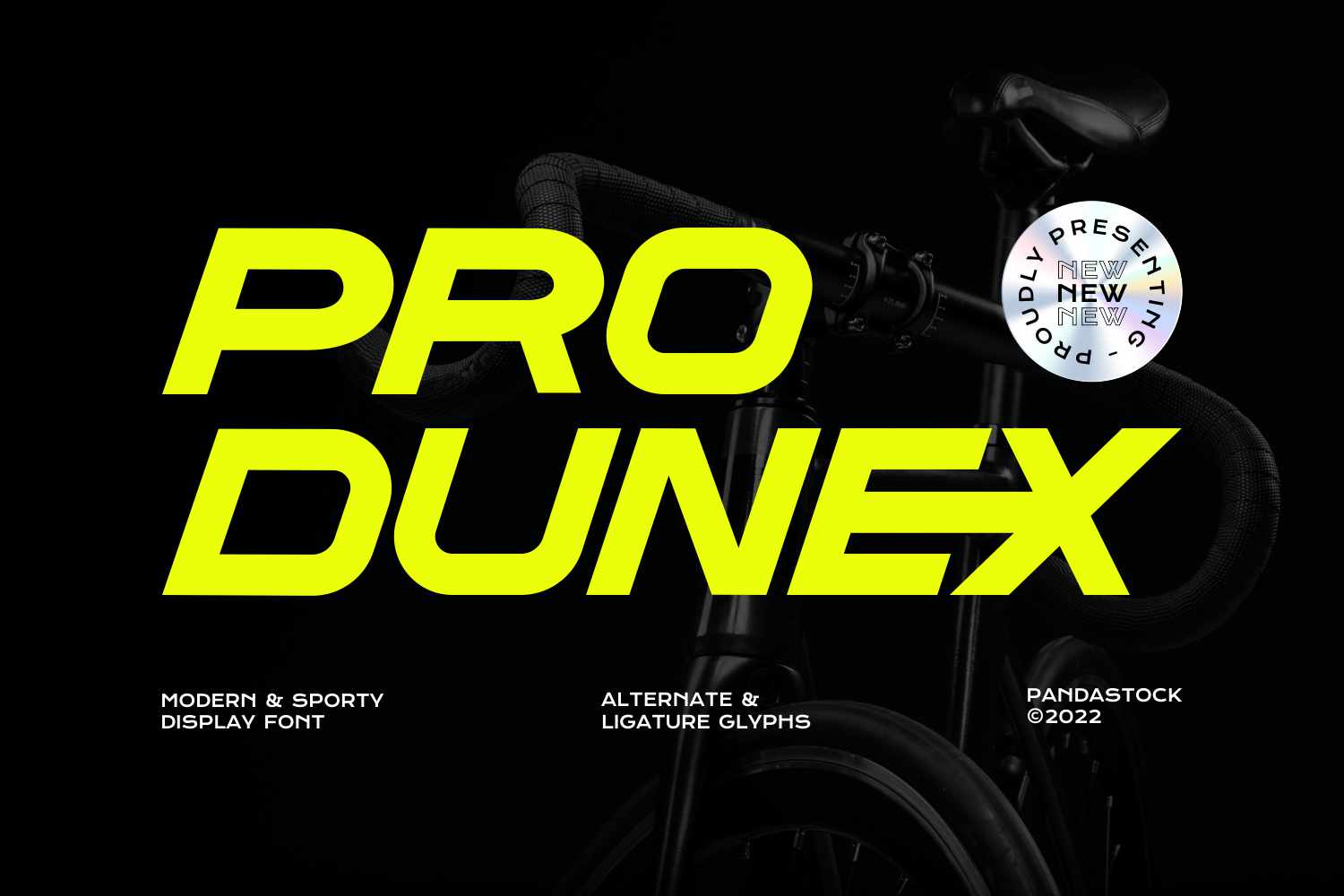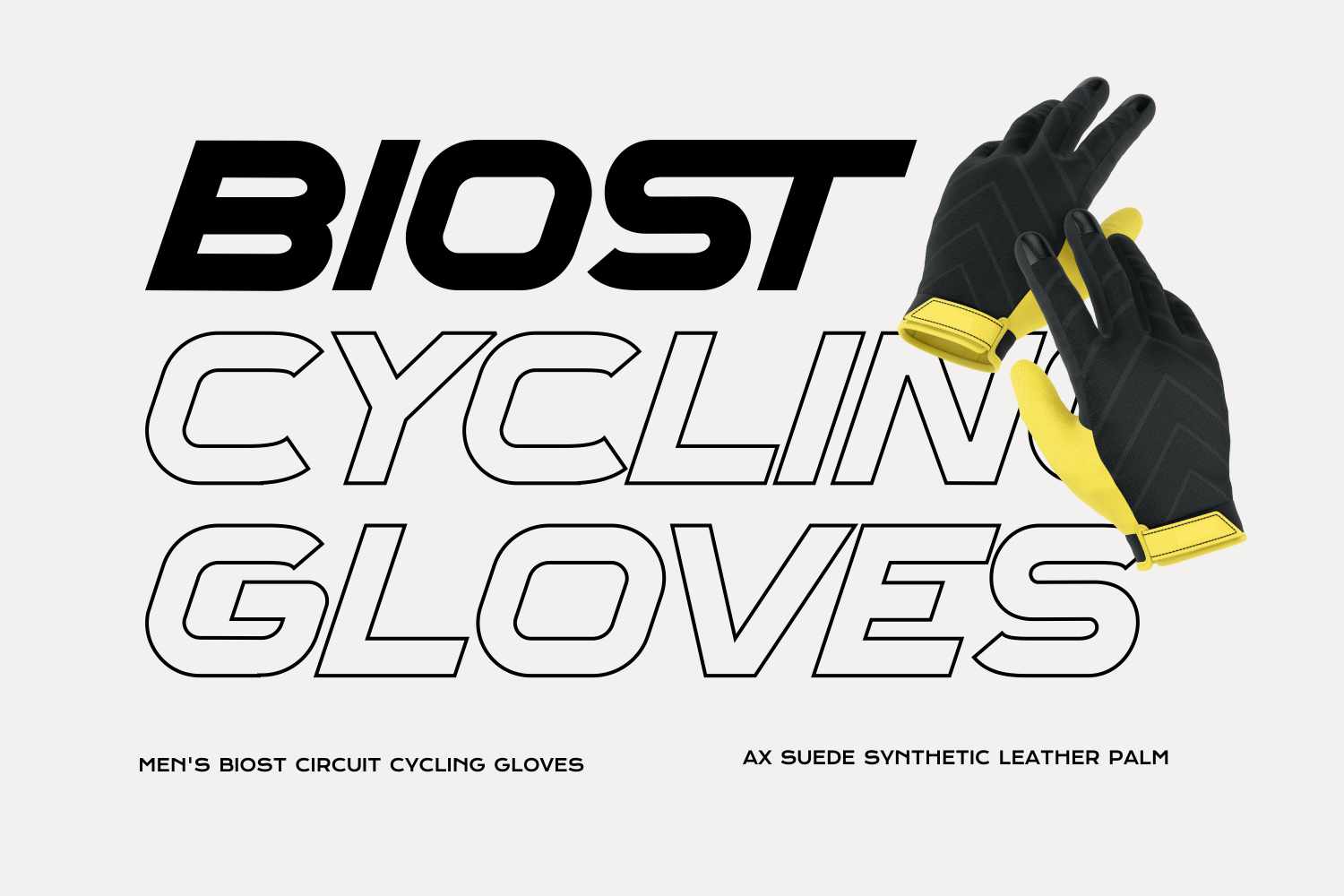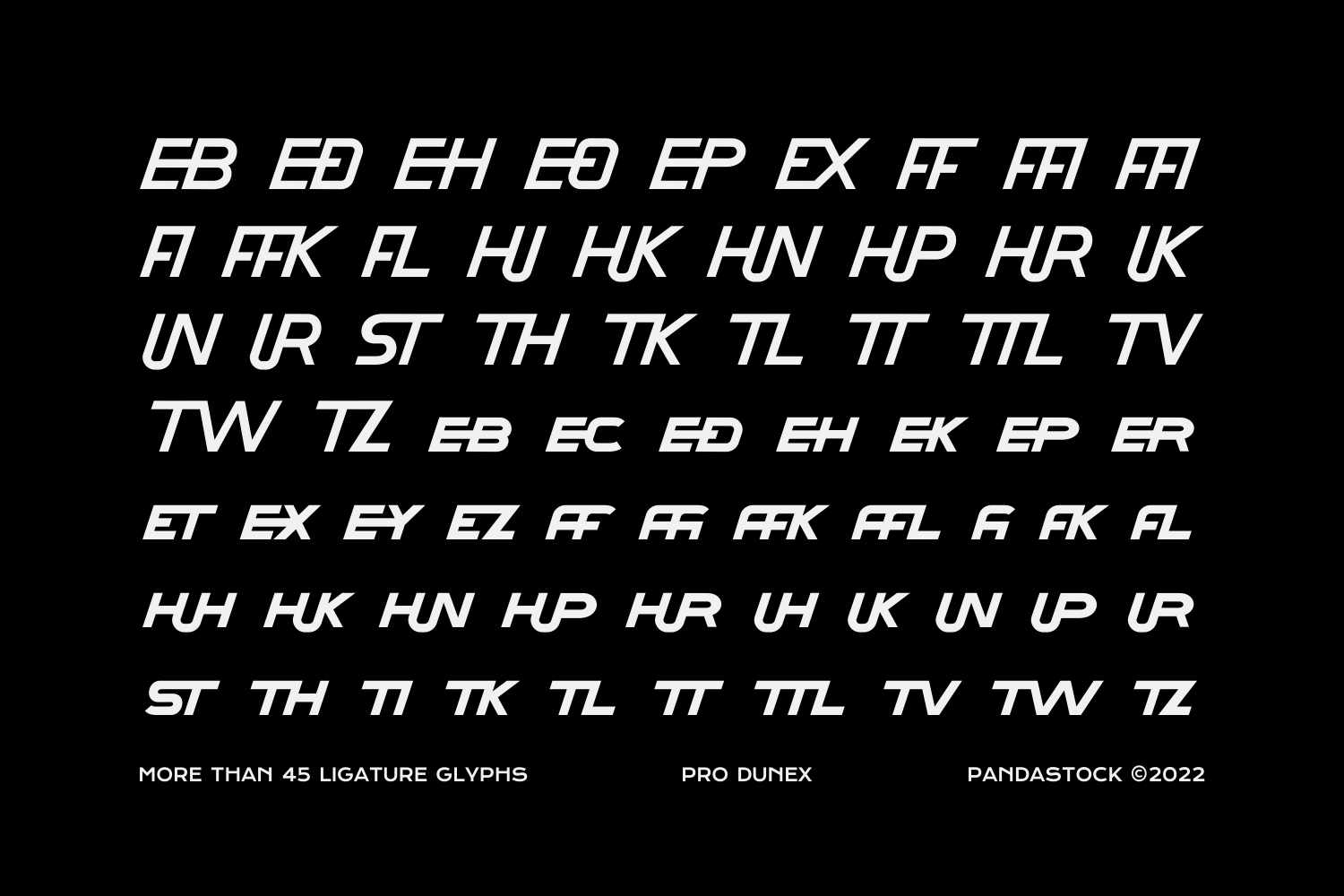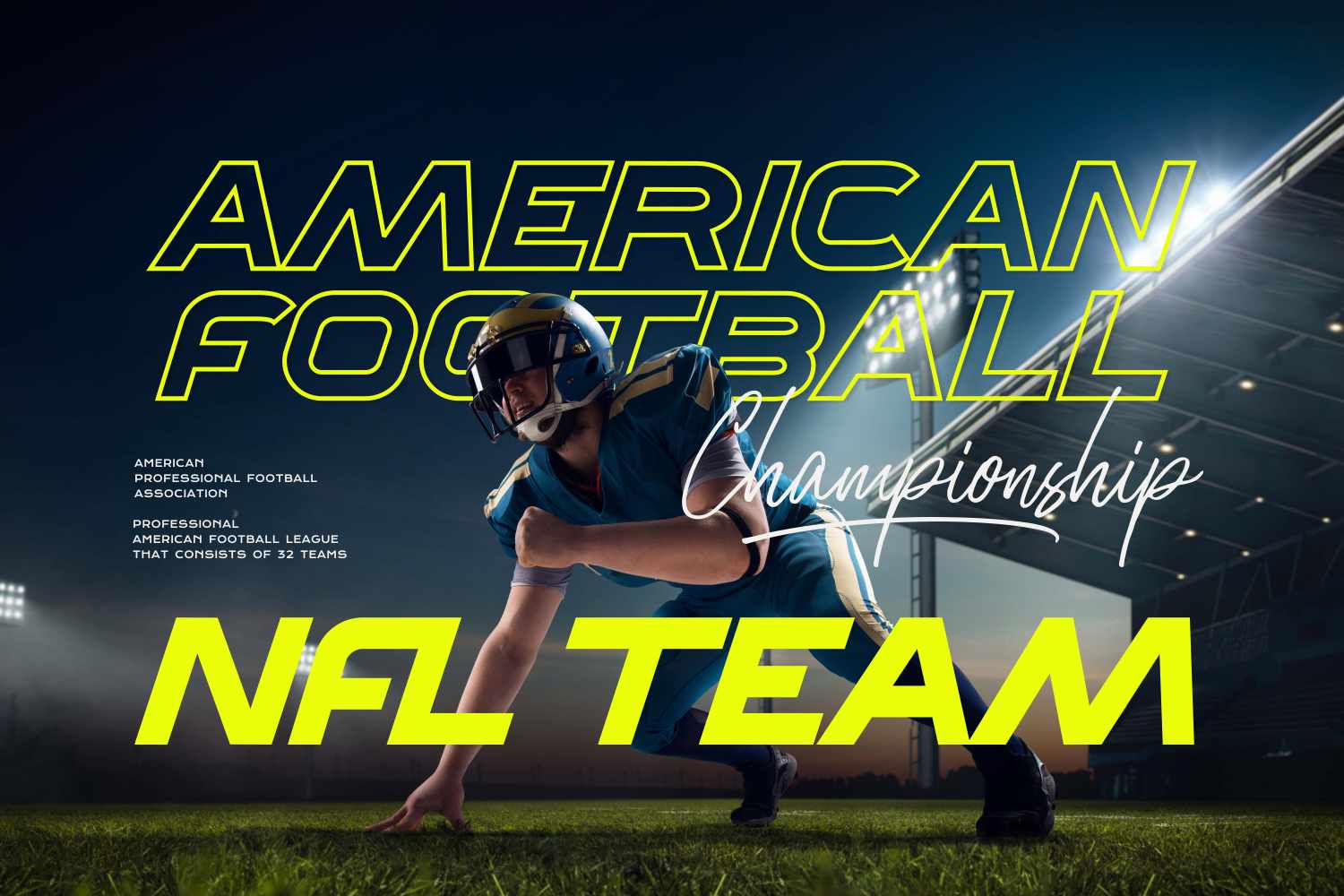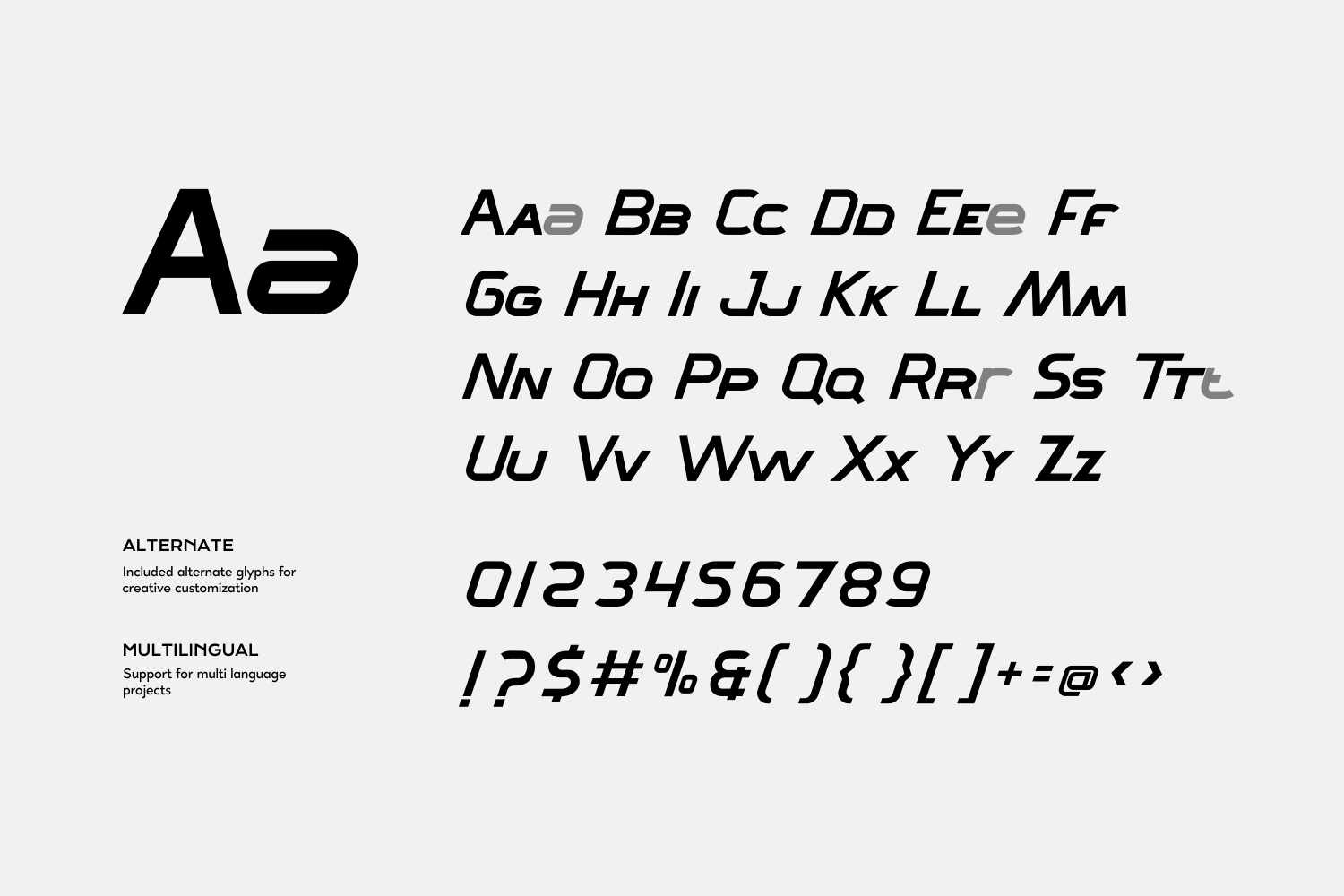
Pro Dunex is a modern and sporty display font designed for high-impact visual projects. With its sleek, slanted letterforms and bold presence, it conveys speed, power, and precision. Making it a perfect choice for sports branding, automotive designs, and energetic advertising. Its clean geometry combined with dynamic italic style creates a contemporary aesthetic that grabs attention instantly.
Packed with alternate and ligature glyphs, Pro Dunex offers versatility for creative customization. Whether used for bold headlines, team jerseys, promotional posters, or product packaging, this font delivers a professional and athletic vibe. Its multilingual support ensures global usability, while the unique letter shapes give every design a fresh, competitive edge.